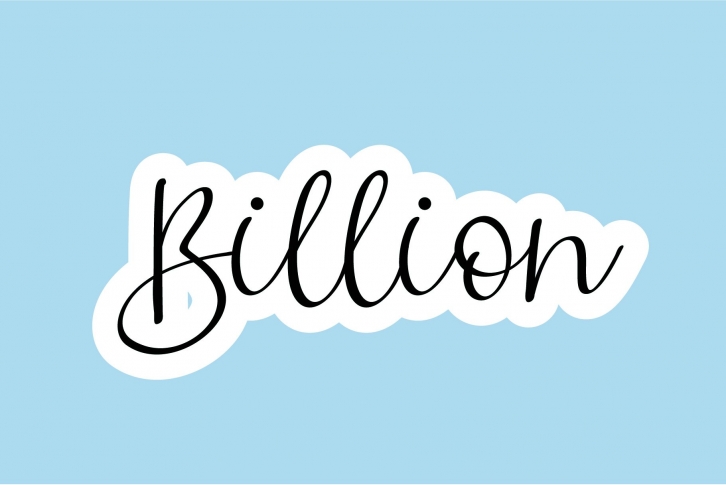
Introducing Billion - Handwritten Font
This font is great for branding materials, quotes, business cards, headings, blogs, logos, Cricut artwork, posters and more!